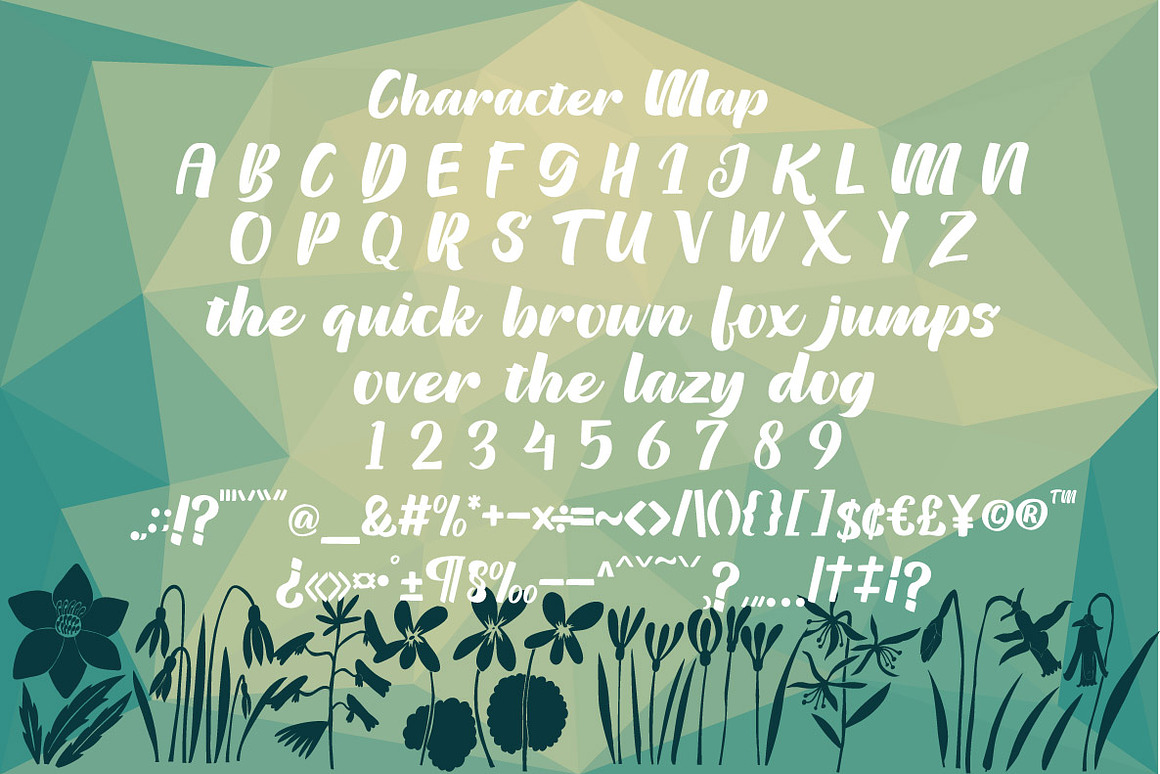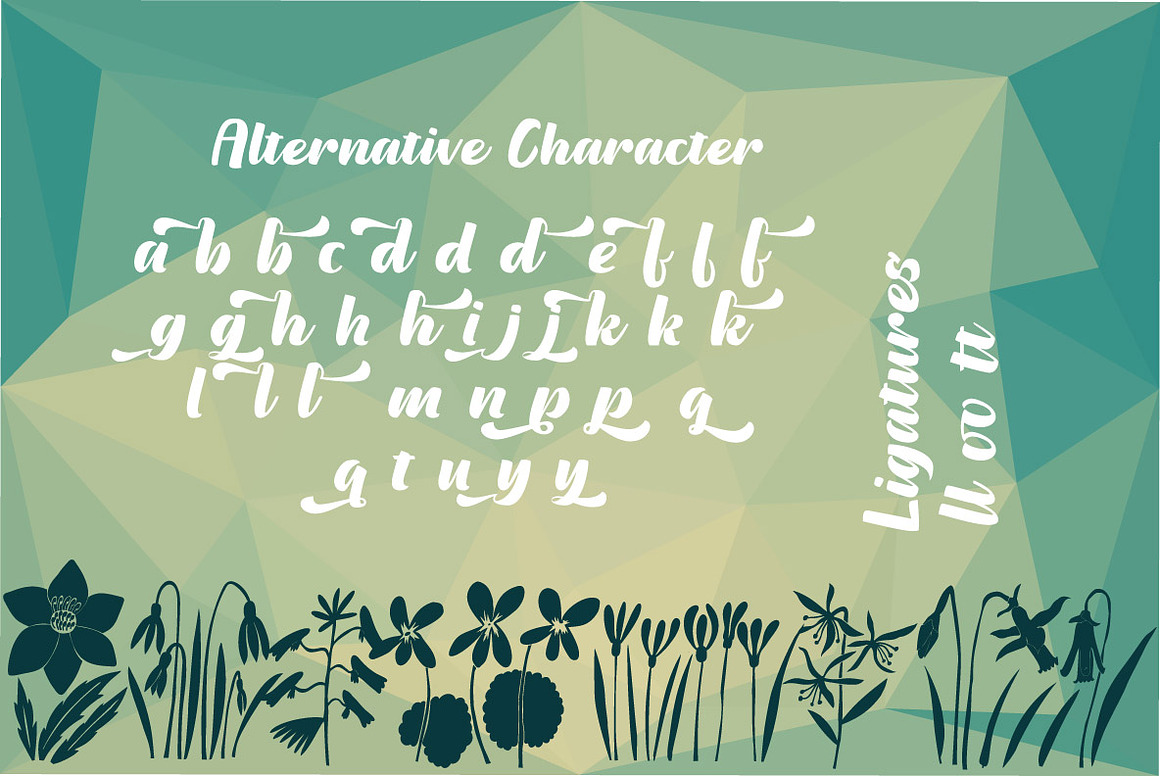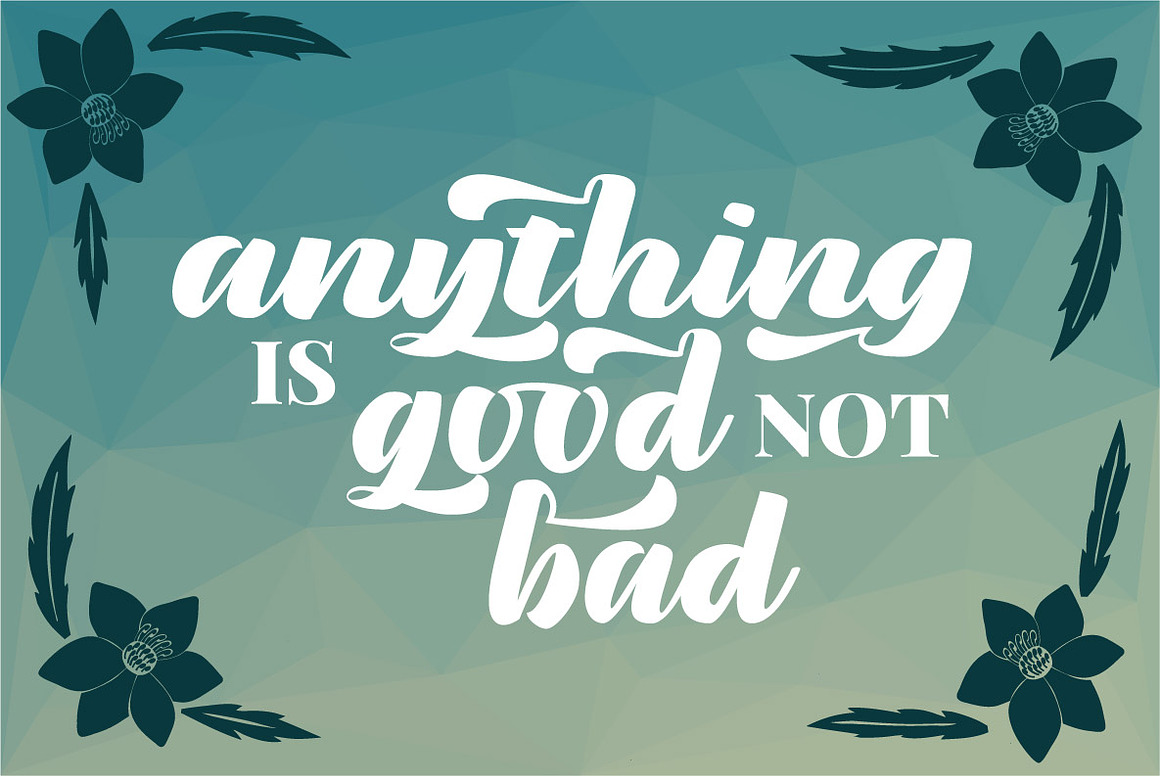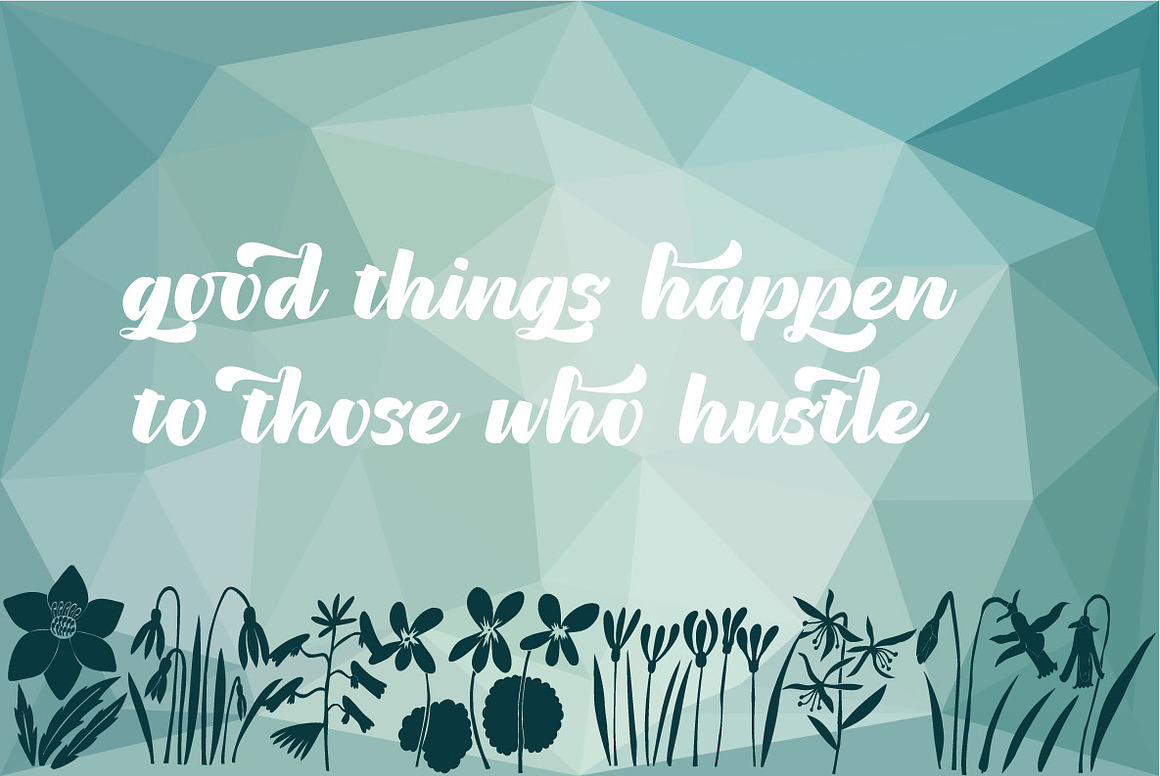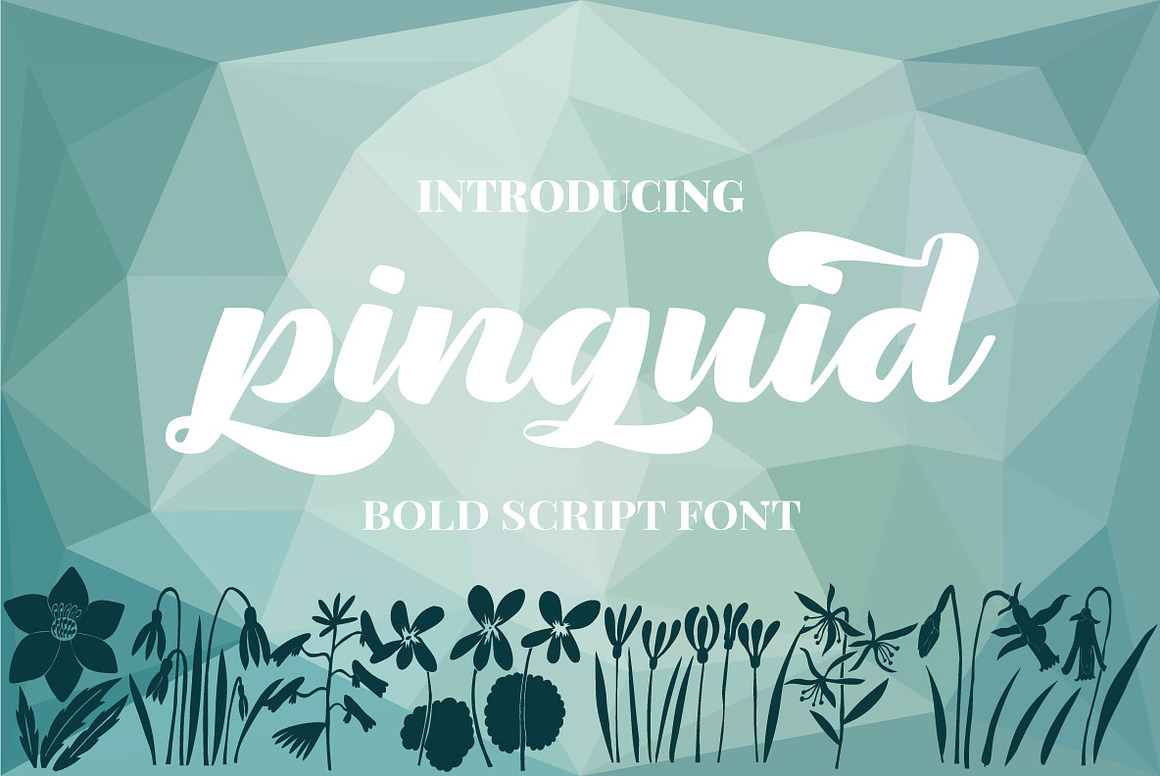
Pinguid | Bold Script Fonts
Pinguid | Bold Script Fonts is perfect for branding projects, wedding invitations, fashion packaging, social media graphics, and elegant poster designs. Its bold, flowing script makes a strong impression while maintaining a stylish and refined look.
What makes Pinguid | Bold Script Fonts exciting is its dramatic curves and confident strokes, which give any text a sense of personality and sophistication. The boldness ensures that headlines and key elements truly stand out, making it ideal for high-impact creative projects.
The Pinguid | Bold Script Fonts family includes Regular, Bold, Italic, and Swash variations, providing designers with a versatile toolkit to experiment with different styles and compositions. This flexibility allows for unique, eye-catching designs.
For designers seeking a typeface that combines elegance, boldness, and versatility, Pinguid | Bold Script Fonts is an excellent choice to elevate any project.